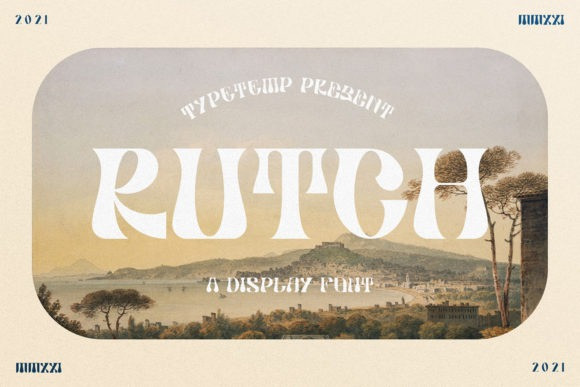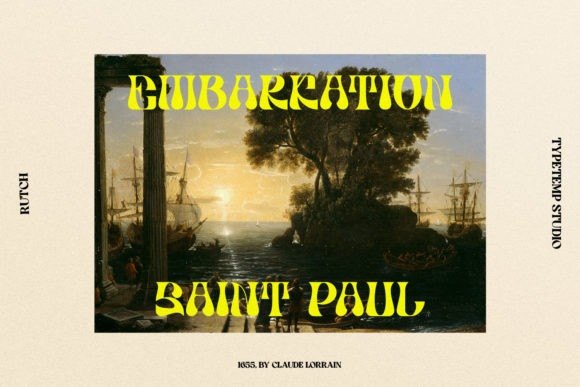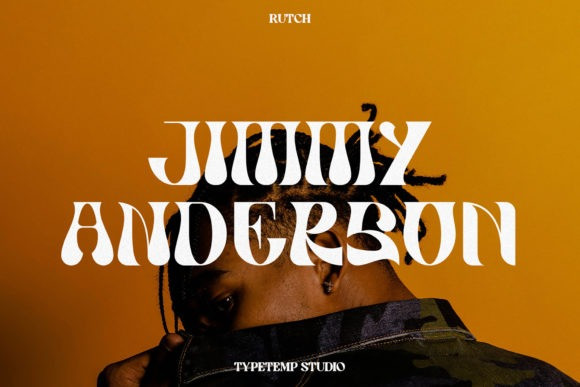
Rutch Font
Rutch is a beautiful and unique display font perfect for editorial projects, logo design, clothing branding, product packaging, magazine headers, or simply as a stylish text overlay to any background image. Add it to any of your creative projects, and notice how it makes them exquisite and outstanding!